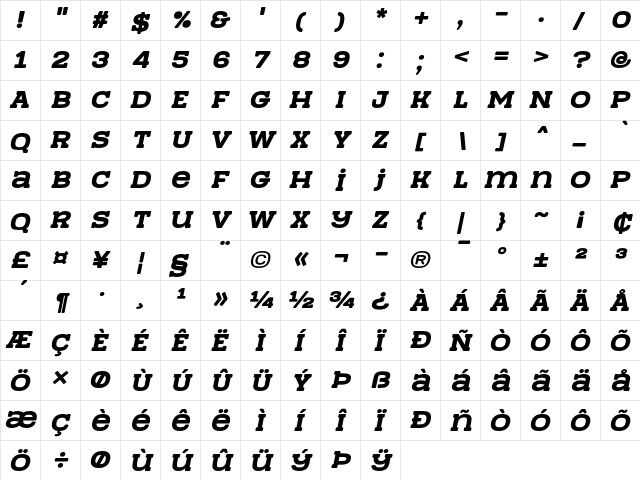
Team Work Italic
| Foundry | 7NTypes |
| Designer | Situjuh Nazara |
Design Context for Team Work Typeface
Team Work is a composed and adaptable typeface that performs quietly and consistently across a wide range of design contexts. Its italic angle brings a sense of urgency and motion to the letterforms.
Pro Tip: Try Team Work for annotation and caption copy alongside an upright companion — the contrast in angle creates a dynamic but ordered typographic system.